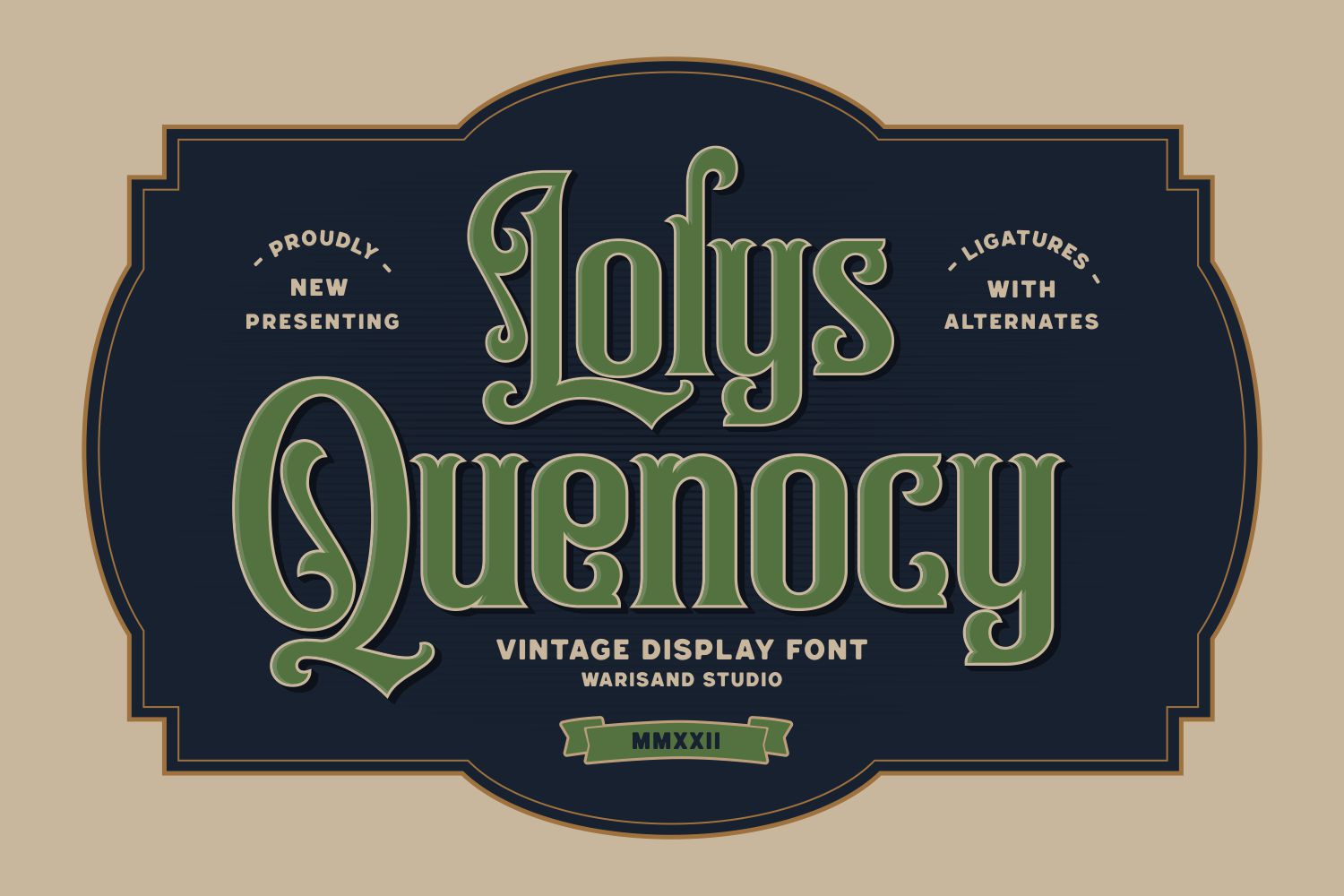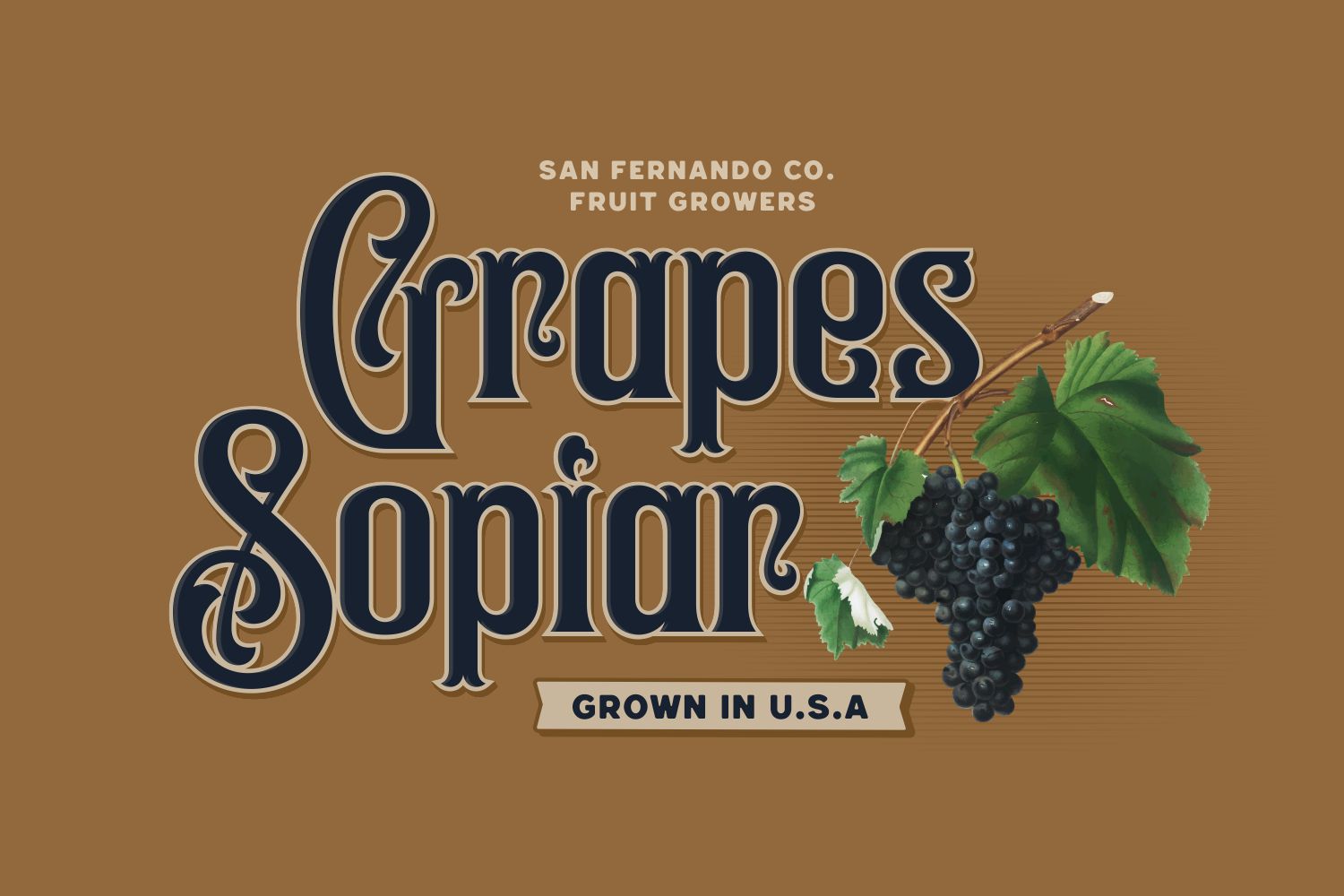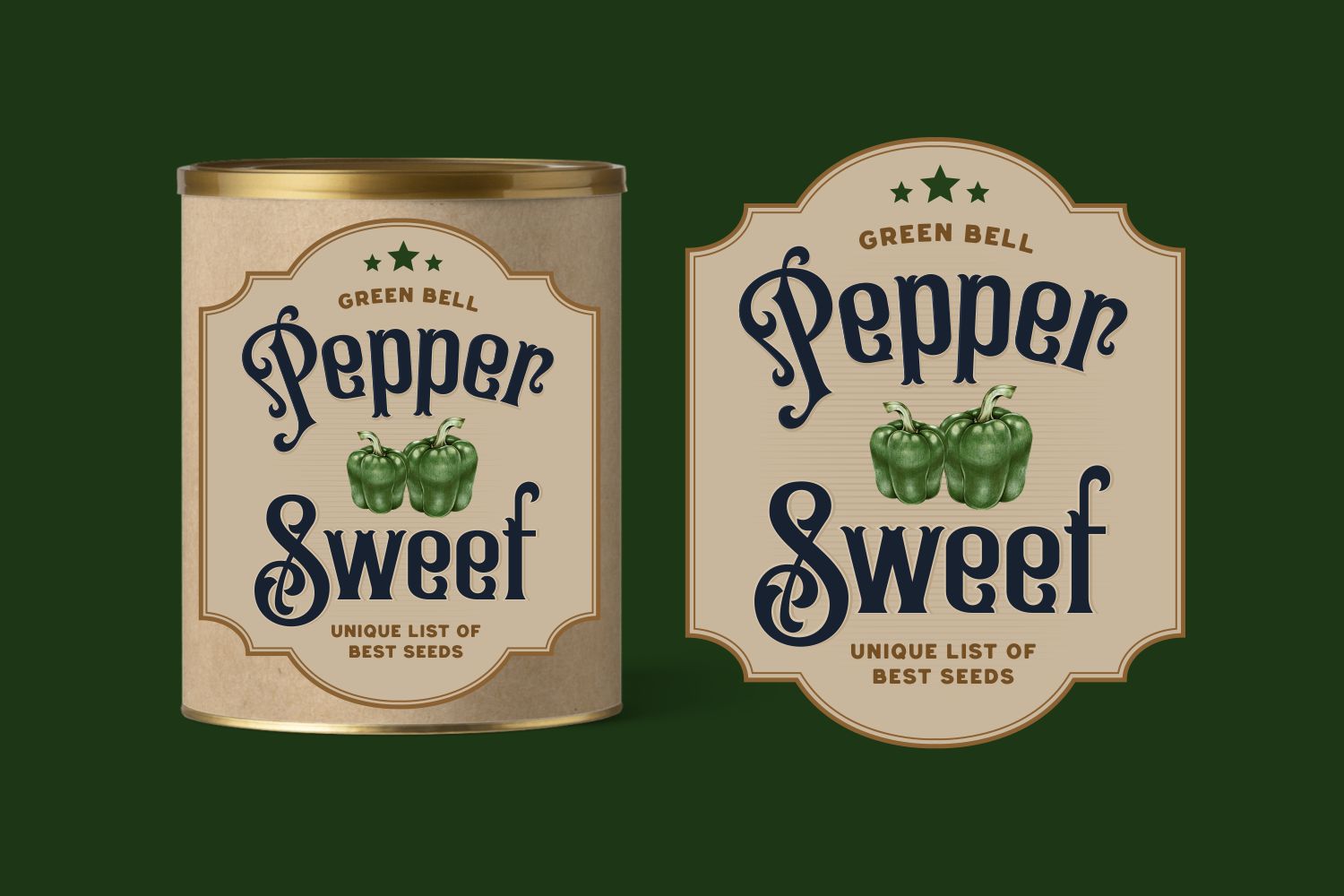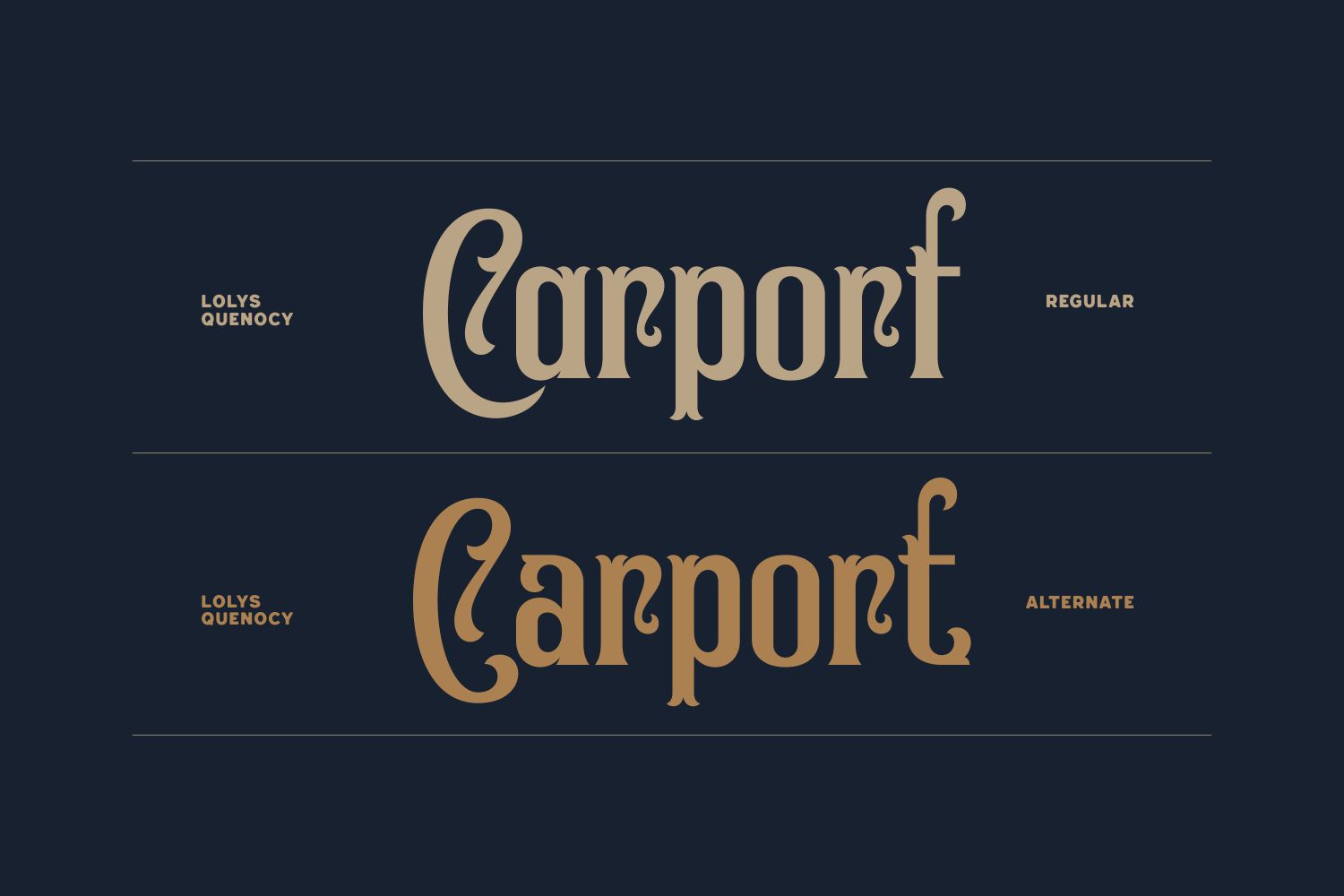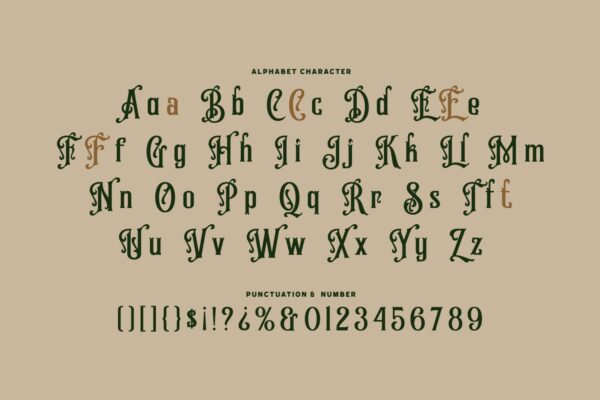
Lolys Quenocy is a striking vintage display font that fuses classic elegance with a bold, ornamental style. Its refined curves, intricate ligatures, and alternate characters give it a sophisticated presence, perfect for projects that demand both charm and visual authority. Inspired by traditional typography and heritage packaging, this font brings a nostalgic spirit to modern branding and label design.
Ideal for headlines, packaging, posters, and vintage-inspired artwork, Lolys Quenocy offers two distinct styles. Regular and Alternate, allowing designers to create dynamic, expressive compositions. With a full set of uppercase, lowercase, punctuation, numerals, and decorative glyphs, this font adds character to any design while maintaining readability and impact.